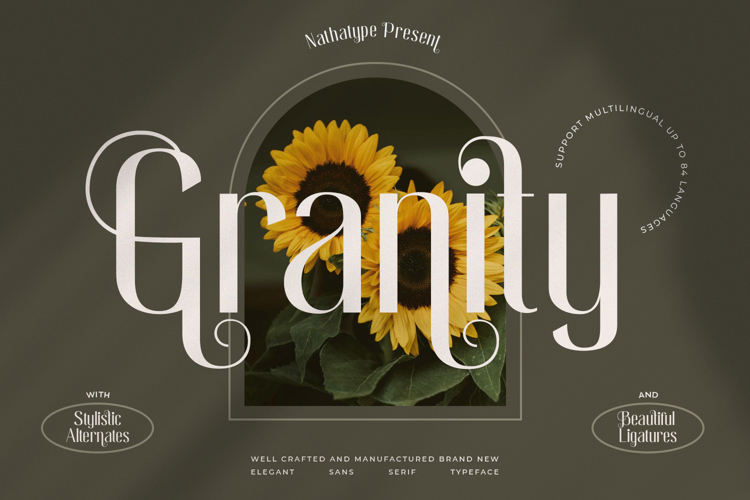
Granity Font
About Granity Font
Granity is a sans serif font that very suitable for market designs being developed today, this font has a trendy, natural and soft style. You can take advantage of every moment. The great way to highlight your design or project.
Features:
• Ligatures
• Stylistic Set
• Numerals and Punctuations